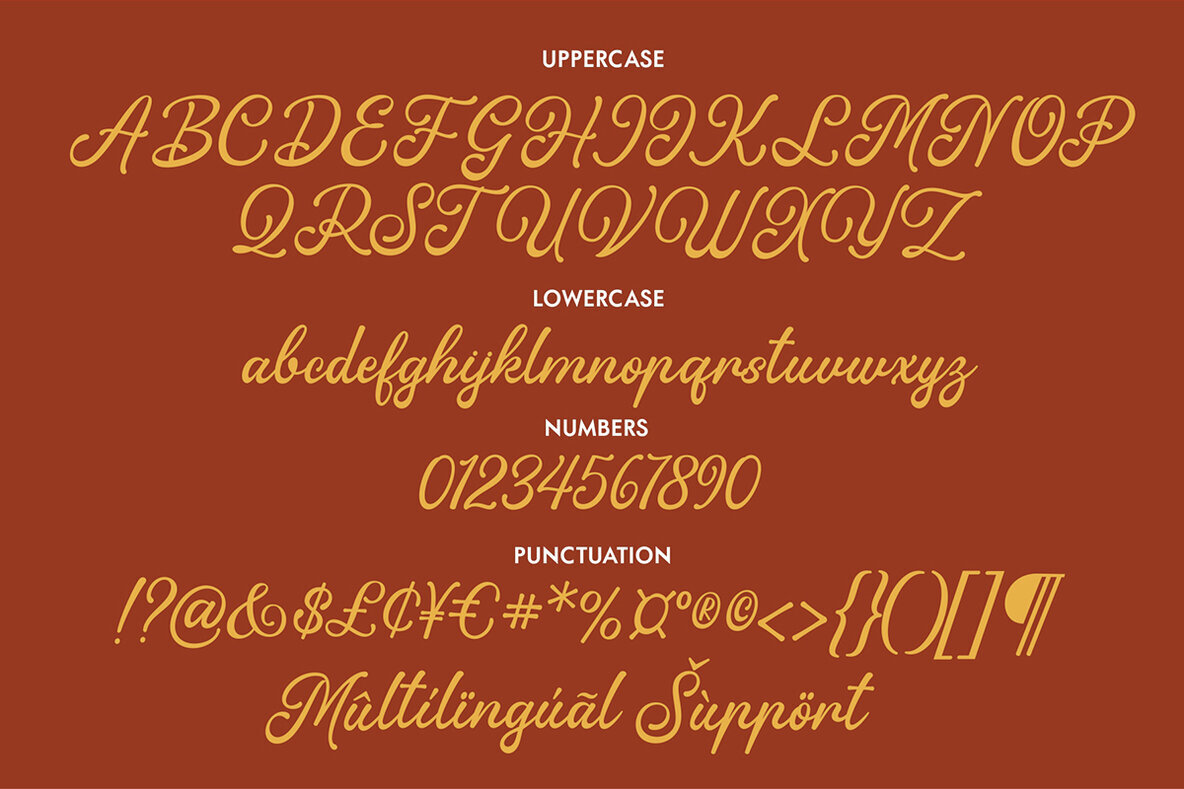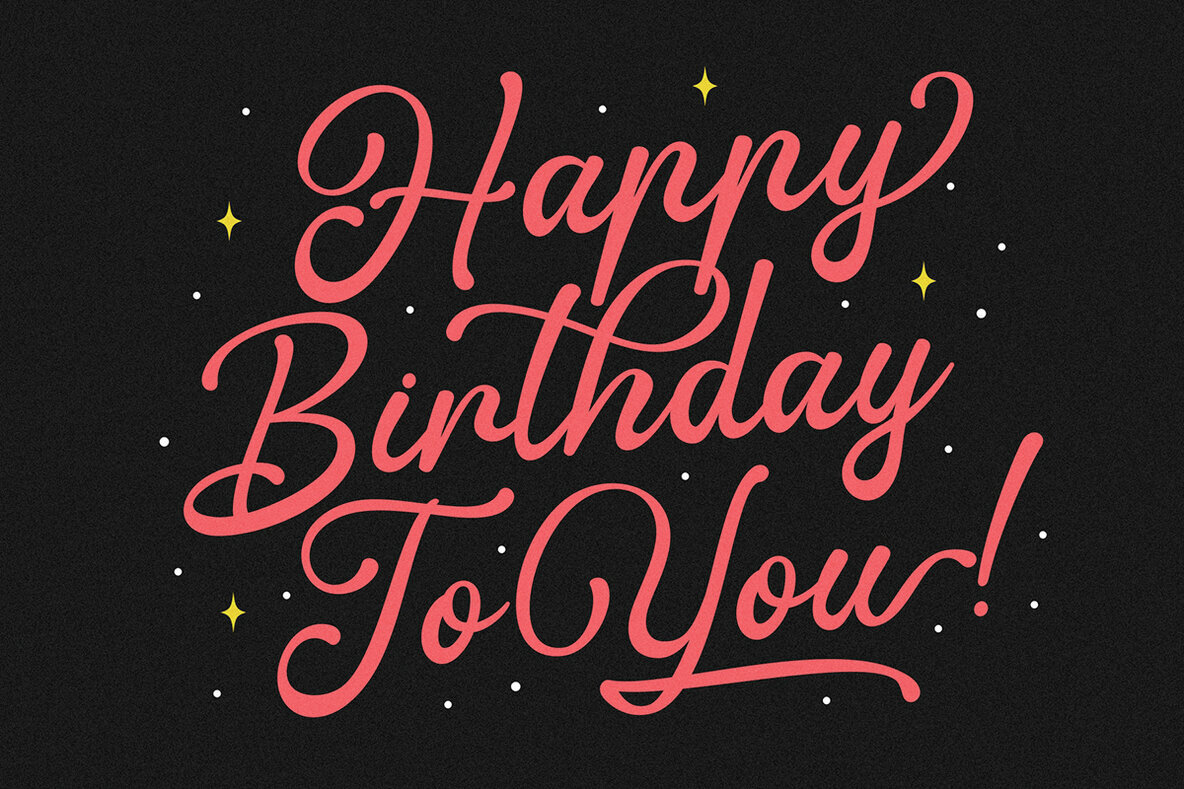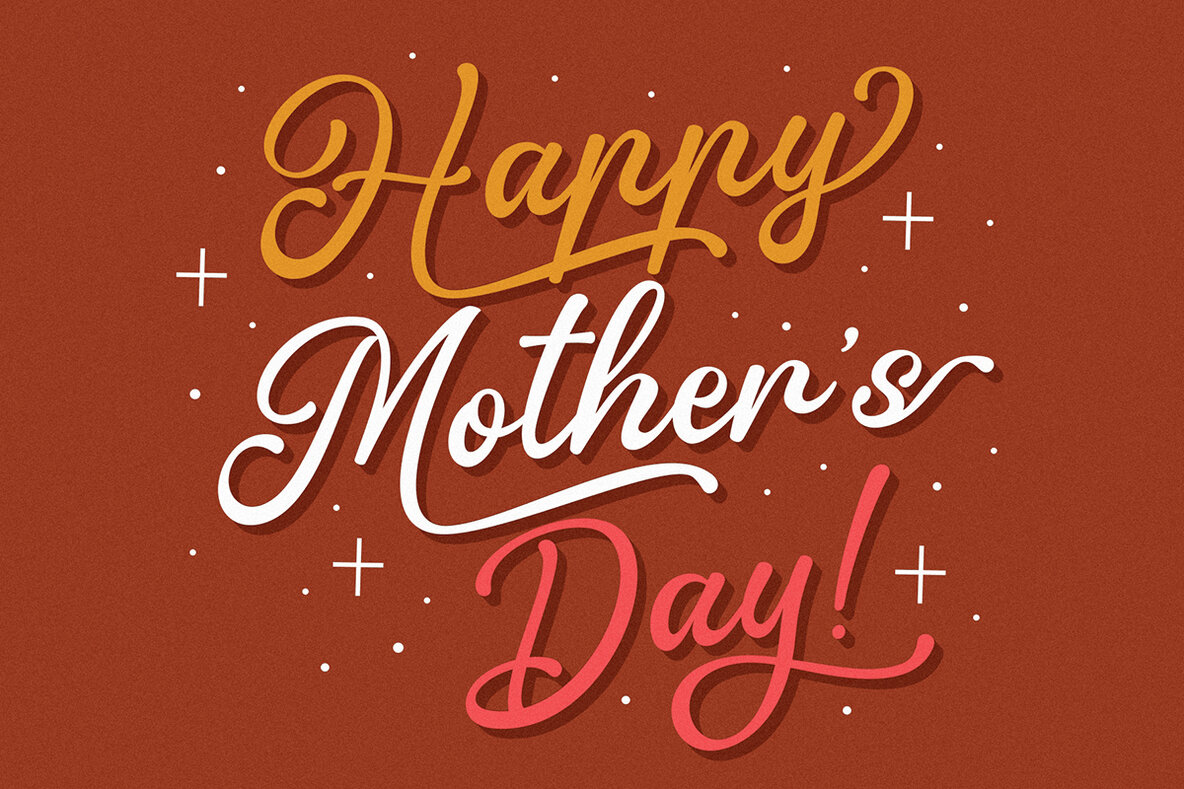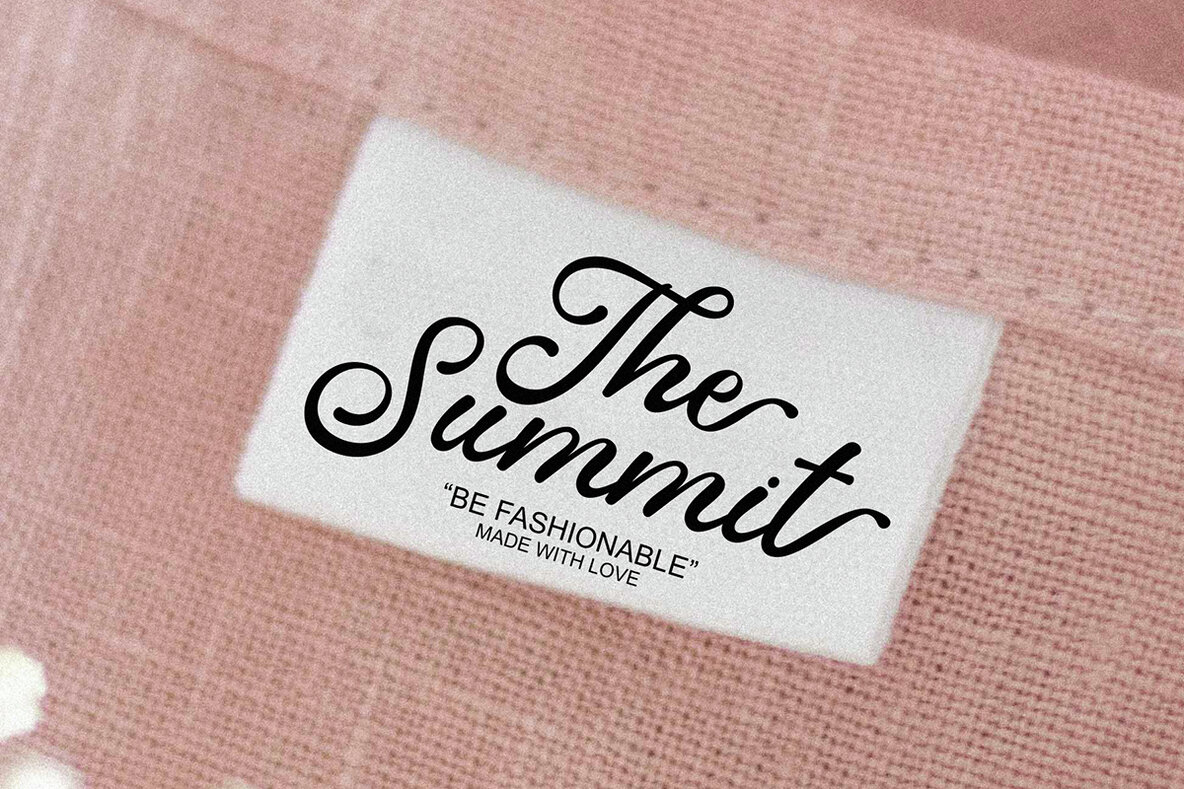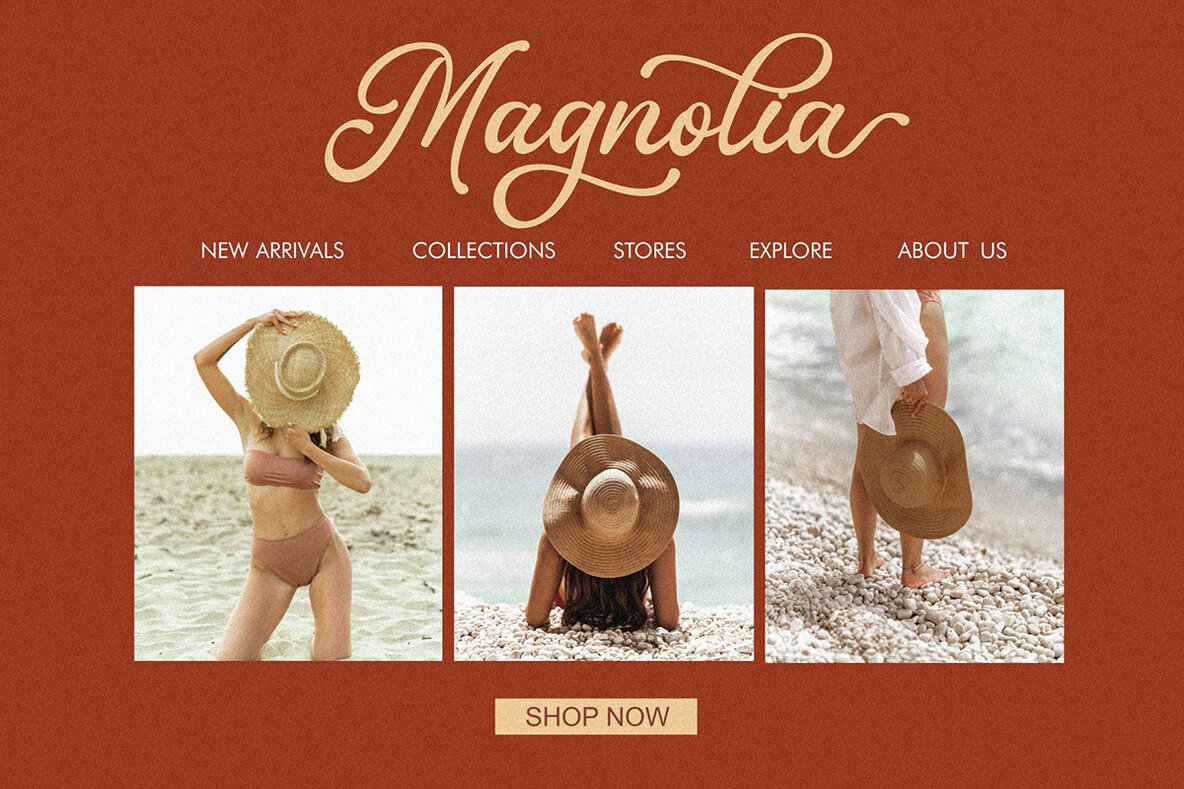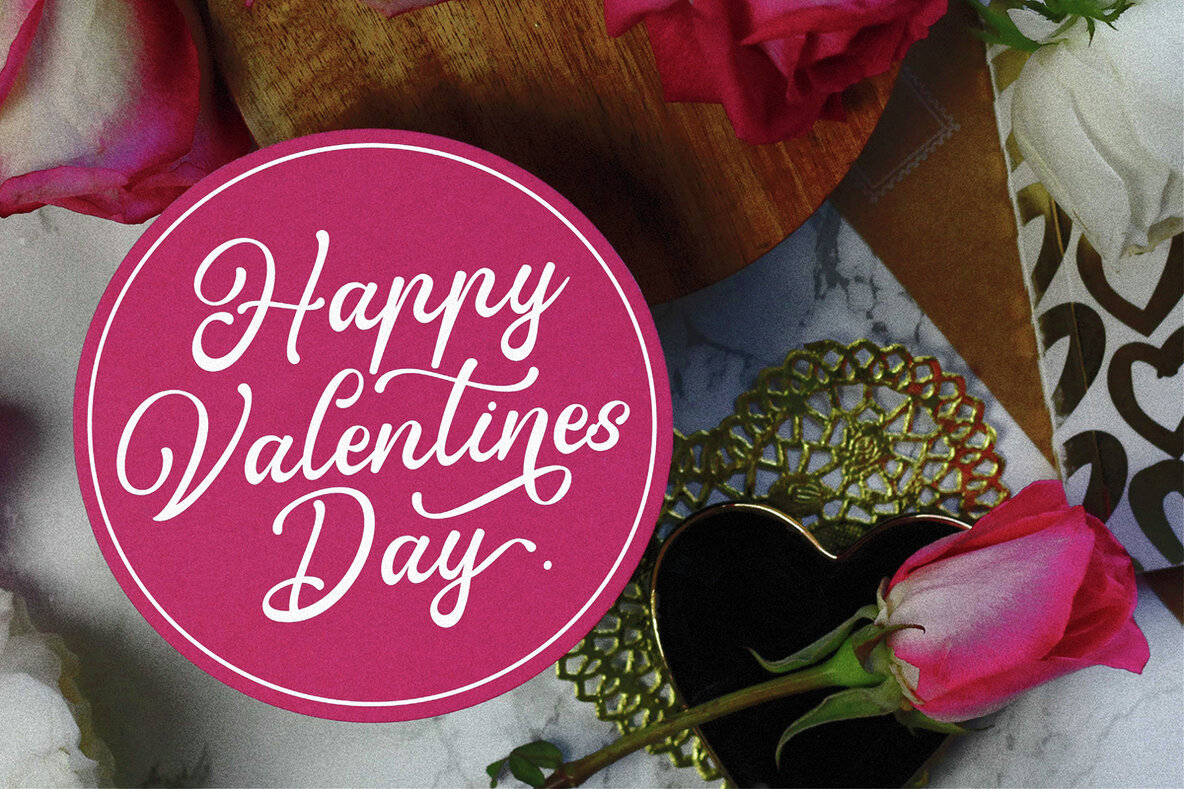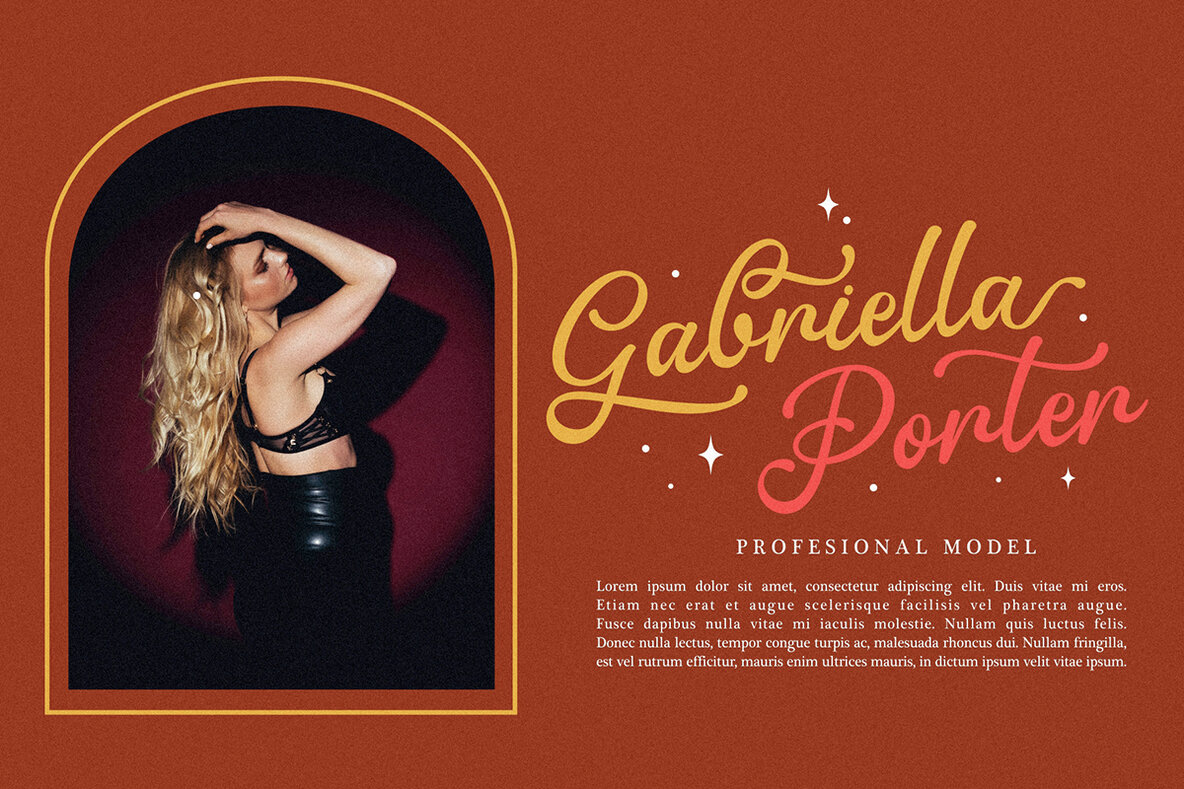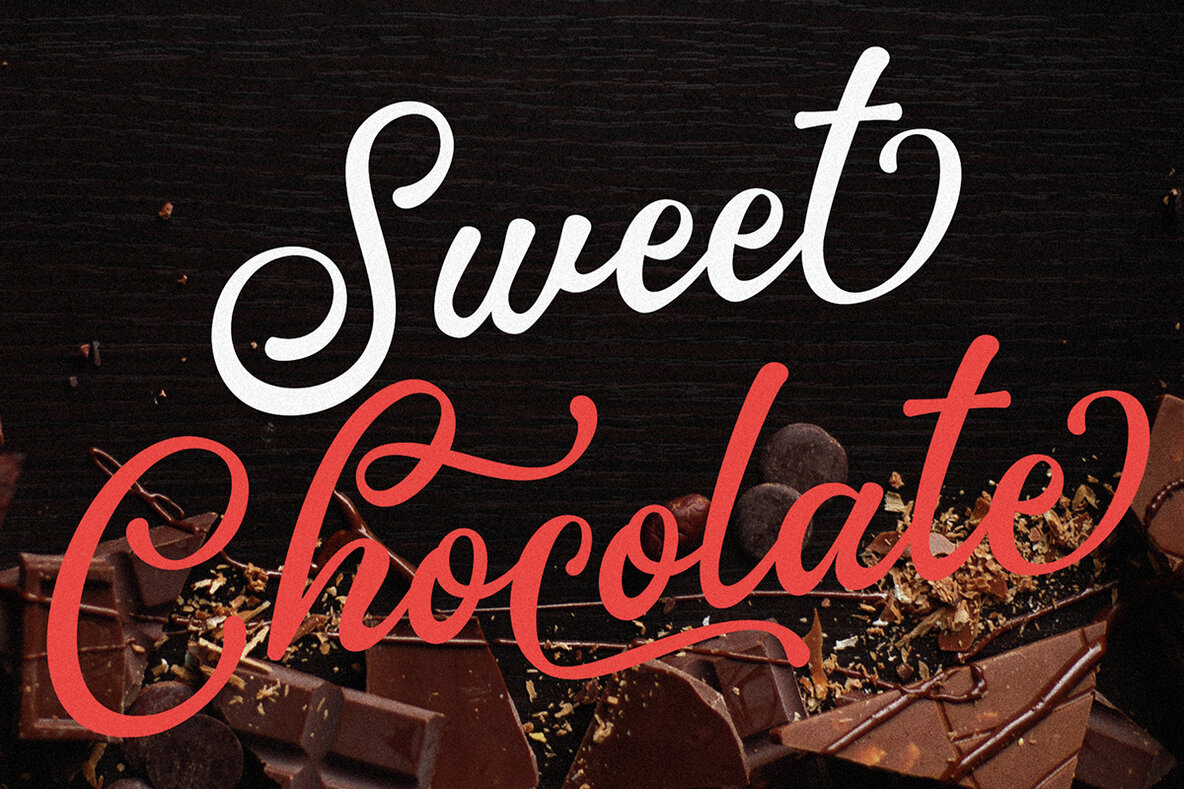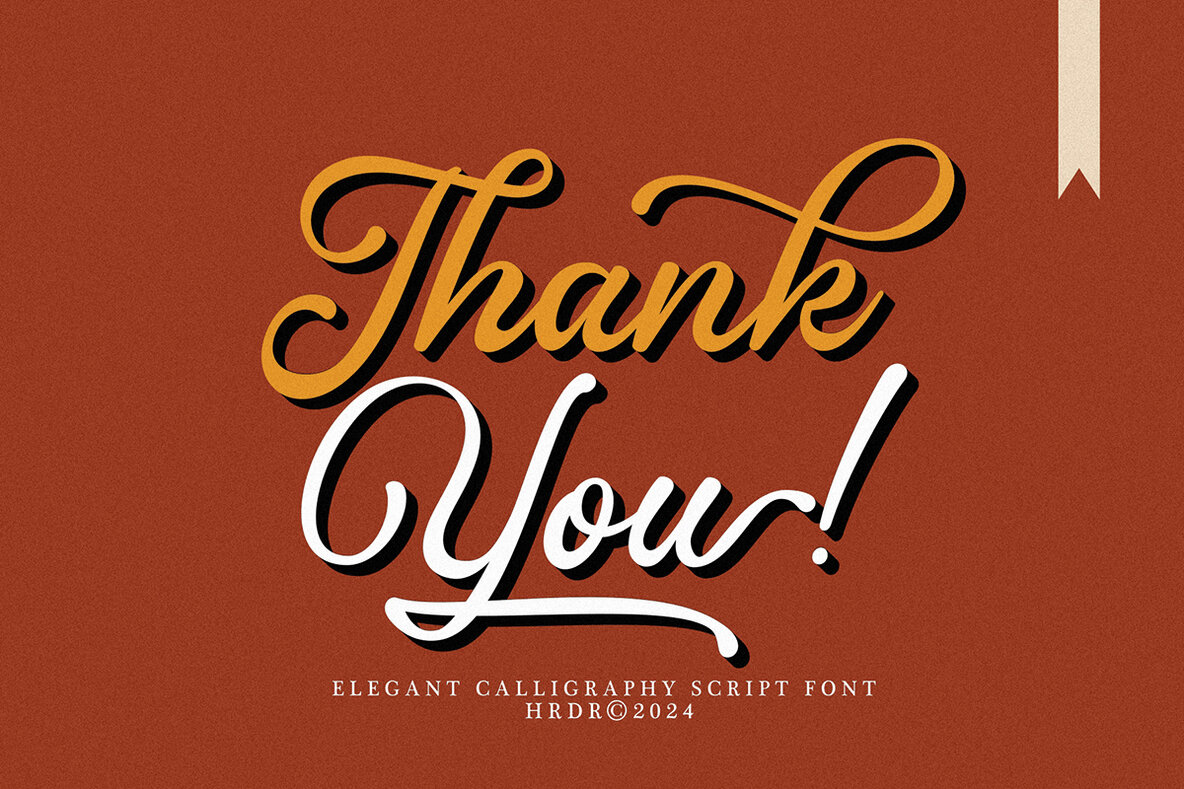
Realman Font
Realman
This elegant and decorative script font is perfect for fancy, romantic, and personalized design projects. Ideal for wedding invitations, greeting cards, and exclusive branding, this cursive typeface features beautiful flourishes and swashes that add an artistic touch to any composition. Font Features: - Uppercase
- Lowercase
- numeric & Multilingual support
- Stylistic Alternates with (Ss01, Ss02, Ss03, Ss04, Ss05, Ss06 , Swashes and Ligatures)